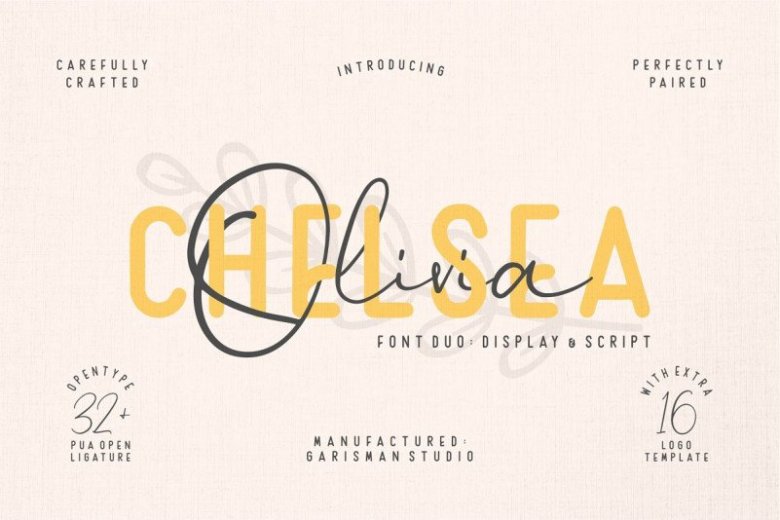
Chelsea Olivia Font Duo
This is simple beautiful font with classy taste, come with script and sans serif (All Caps) font variations, opentype feature such as ligatures. The font duo is perfect for photography, and many other design project. Introducing Chelsea Olivia Font Duo. It is design and shared by Garisman Std. A warm duo of fonts in front of you! This is a super duo with lots of ligature. This is perfect for logos (including 16 pre-made logos and you can edit them again), wedding invitations, easter, posters, business cards, logos, headlines, Instagram stories, youtube stories, book cover, poster promotion and many more! Get the best pairing fonts with Chelsea Olivia!